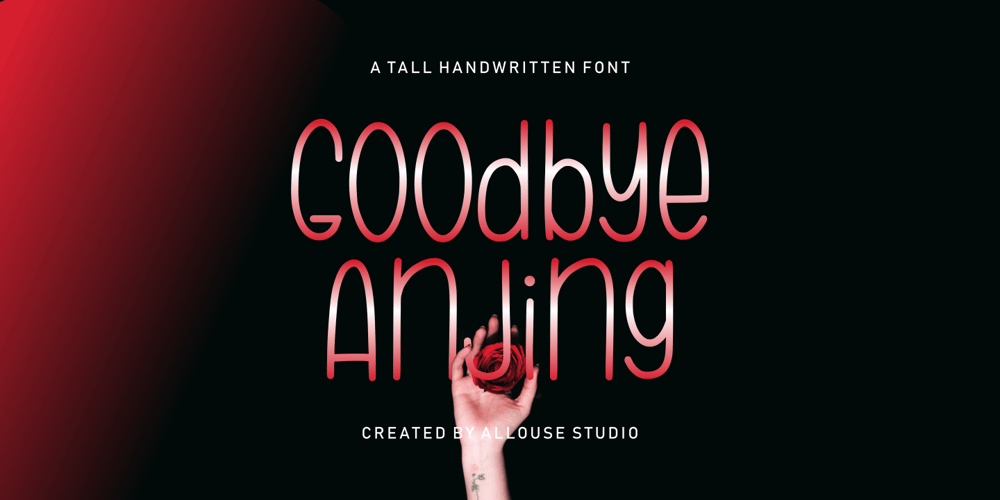
Goodbye Anjing
Goodbye Anjing font
Goodbye Anjing Font Family was designed by Fachrizal Yusuf and published by Allouse Studio. Goodbye Anjing contains 1 styles and family package options. Goodbye Anjing is a Tall Handwritten Font that will give you an young and fun feeling.Goodbye Anjing come along with Multi-Lingual support which will add cool impression for your need.We highly recommend using a program that supports OpenType features and Glyphs panels like many of Adobe apps and Corel Draw, so you can see and access all Glyph variations.Goodbye Anjing is perfect for any tittle, shope name, lyric video or logo, this also very suitable on product packaging, branding project, magazine, social media, wedding, or just used to express words above the background.Enjoy the font, feel free to comment or feedback, send me PM or email if there are issues or queries.Thank you!